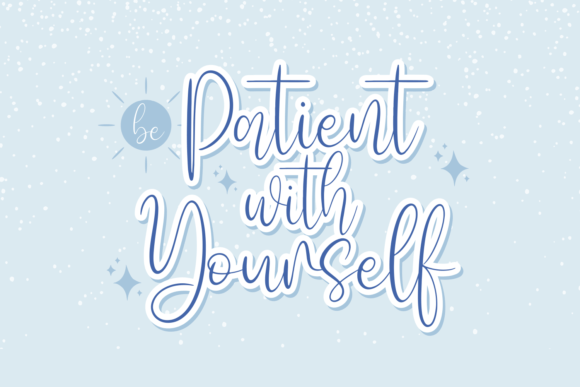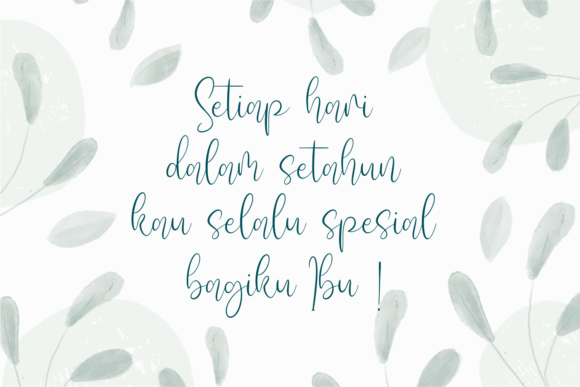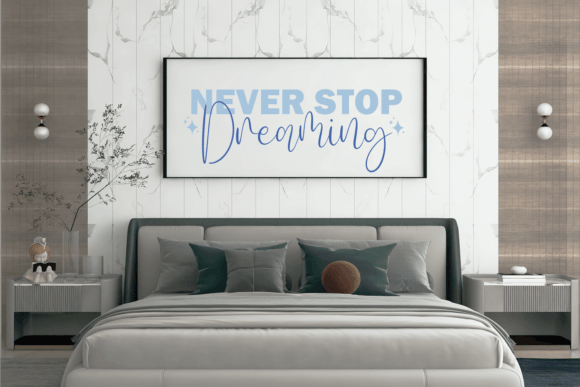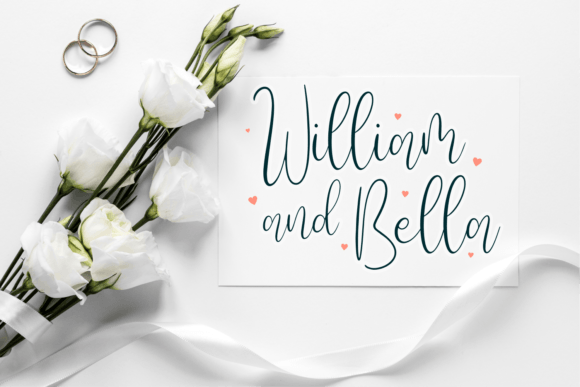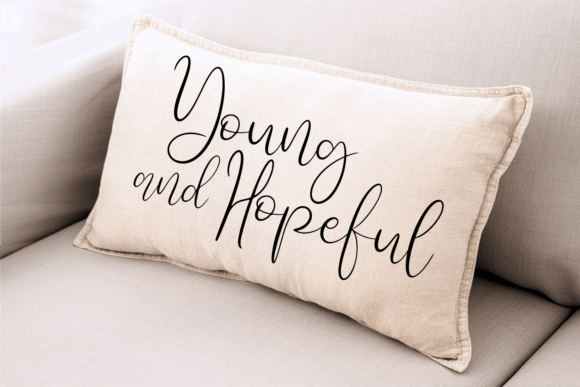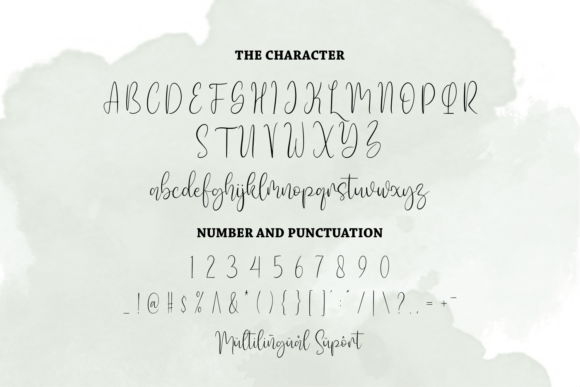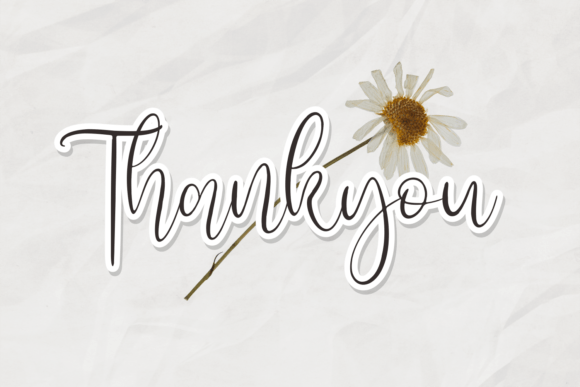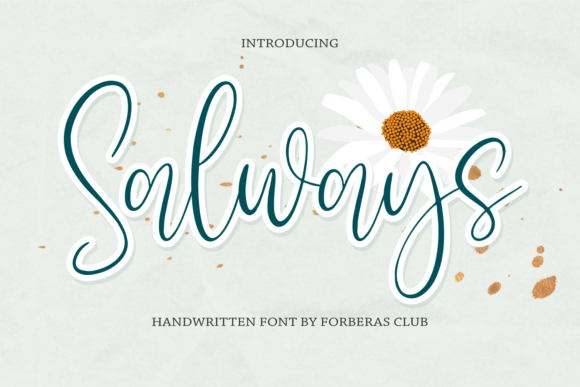
Salways Font
About Salways Font
“Salways: Where Elegance Meets Handwritten Charm in Typography
Introducing Salways, a beautiful and elegant handwritten font meticulously crafted to captivate your audience and elevate your brand to unparalleled heights. With its refined strokes and timeless charm, Salways is designed to make your projects shine, leaving a lasting impression on your audience. Whether you’re working on headings, logos, ads, printed quotes, packaging, websites, social media posts, or any branding materials, Salways infuses your creations with a touch of sophistication and artistic allure, making them dance and come alive with an irresistible elegance.
The magic of Salways lies in its exquisite combination of elegance and handwritten charm, where each letter is carefully crafted to exude grace and style. Its flowing strokes and delicate detailing create a visual harmony that captures the essence of refined beauty with a touch of handmade warmth. Imagine your logos adorned with Salways’ elegant, flowing letterforms, exuding confidence and sophistication. Picture your printed quotes featuring its timeless handwritten flair, instantly evoking a sense of class and creativity. With Salways, your designs radiate with a timeless elegance, making them visually enchanting and emotionally resonant.
One of Salways’ standout features is its ability to evoke genuine emotions and create a memorable connection with your audience. Its elegant charm instantly adds a sense of sophistication and luxury to your designs, drawing viewers in and creating a delightful experience. Whether you’re designing social media posts, packaging, or branding materials, Salways injects a touch of refined beauty that resonates with people of discerning taste, making your projects stand out with a unique blend of elegance and handwritten allure.
Moreover, Salways is more than just a font; it’s an embodiment of timeless beauty and creative expression. Its elegance and handwritten charm resonate with individuals who appreciate the subtlety of artistic craftsmanship, making it a favorite among designers and enthusiasts seeking a font that exudes sophistication and refined style. Salways becomes a symbol of your creativity, allowing you to create designs that not only capture attention but also leave a lasting impression with a touch of timeless elegance.
In a world where elegance meets handwritten charm, Salways helps you make a statement. It speaks the language of refined beauty and artistic allure, resonating with those who appreciate the beauty of timeless design with a touch of handmade warmth. Whether you’re designing for branding, social media, or any creative endeavor, Salways becomes your trusted companion, guiding you toward design excellence.
So, why settle for ordinary when you can embrace the extraordinary with Salways? Let this elegant handwritten font be the canvas for your creative expressions, and watch as your projects come to life with timeless elegance, refined style, and artistic allure. Let your creativity flow, and let Salways be the brushstroke that paints your ideas into visually captivating masterpieces, leaving a lasting impression on the hearts of your audience. Elevate your designs with Salways, where elegance meets handwritten charm, and transform your creations into works of art that inspire and captivate.”